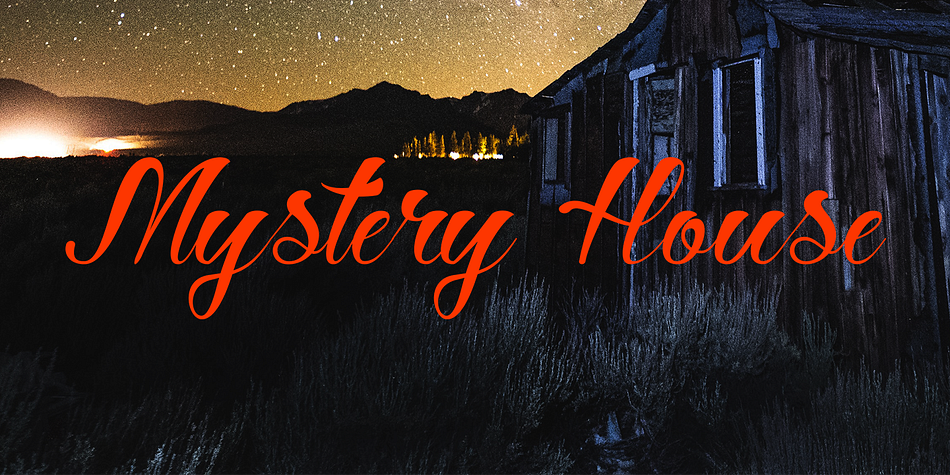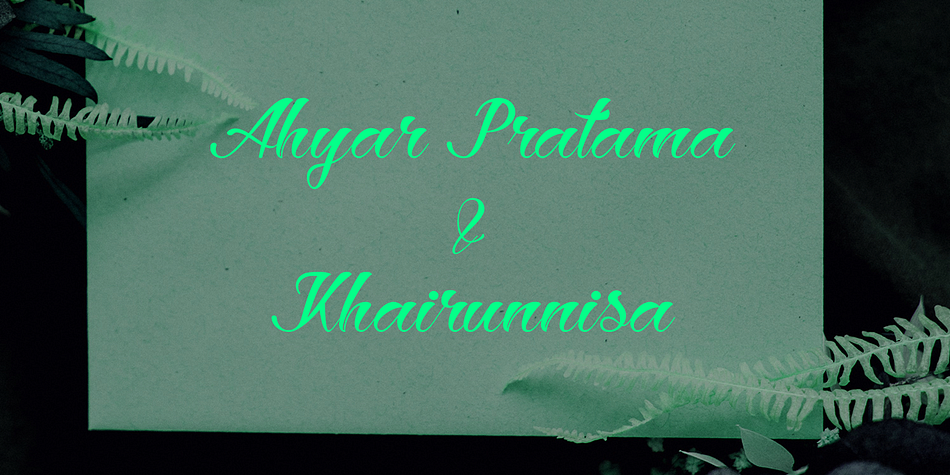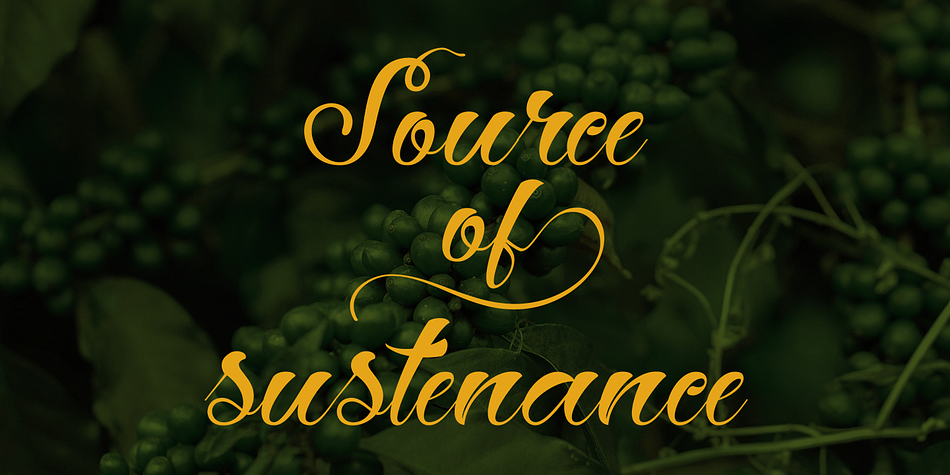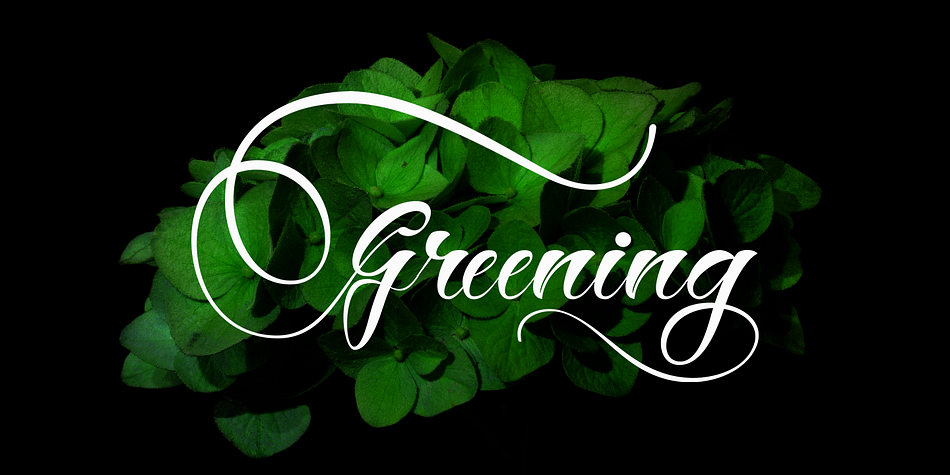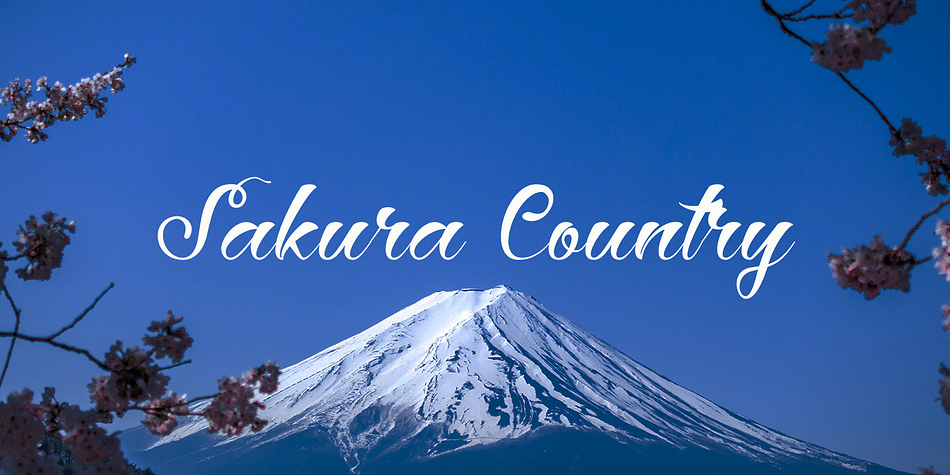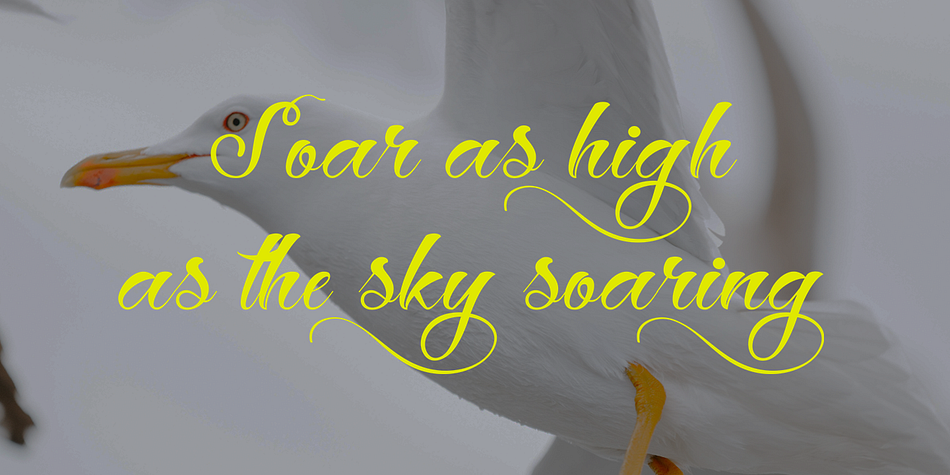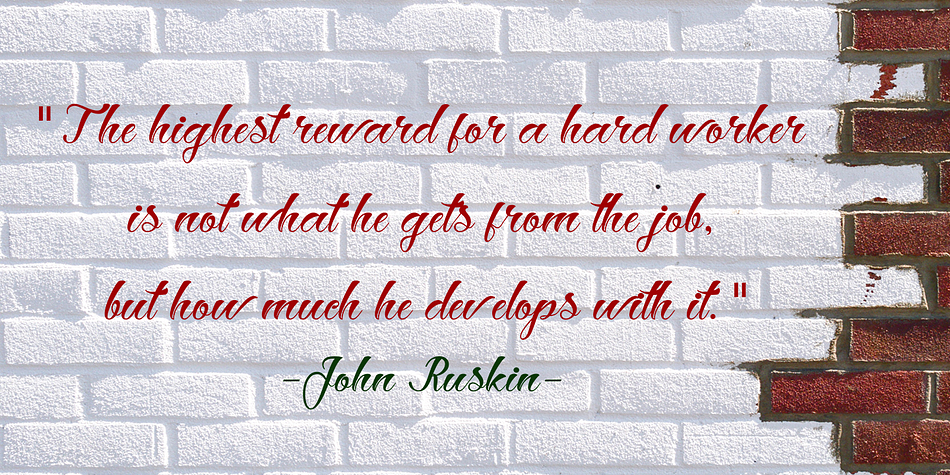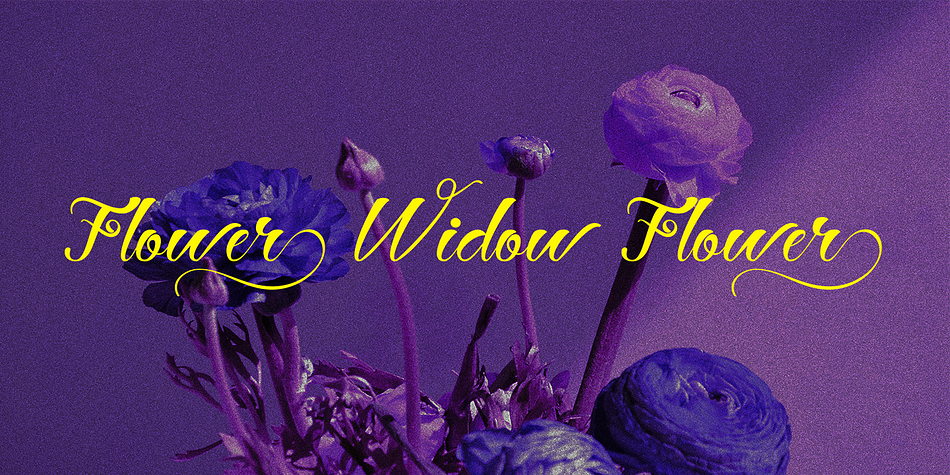
Hey Jintan
Hey Jintan is a brush script font family published by Gatype.
Hey Jintan is an elegant script font with a contemporary atmosphere and impeccable shape, inspired by timeless classic calligraphy. Neither too thin nor too thick, balanced and varied. Hey Jintan is designed to enhance the beauty of your project. because this font will be advocates for purposes such as wedding invitations, party, graduation, birthday, gathering, etc.